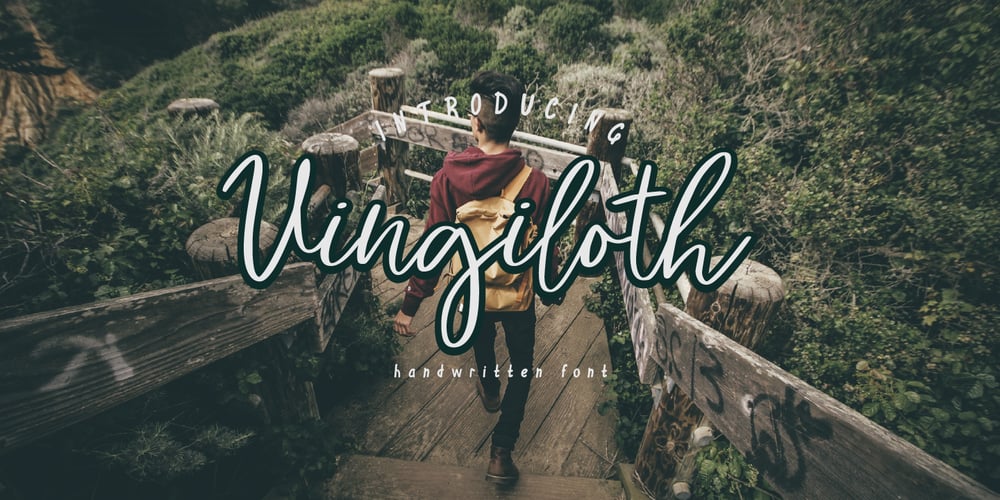
Vingiloth Font Family was designed by Hleb Zhyhunou and published by Mr. Typeman. Vingiloth contains 2 styles and family package options. Vingiloth is a delicate script which simulates natural handwriting. Vingiloth includes Vingiloth Regular and Vingiloth Caps, designed to contrast and compliment each other with elegant beauty and contemporary style, making it an excellent fit for projects of all types.